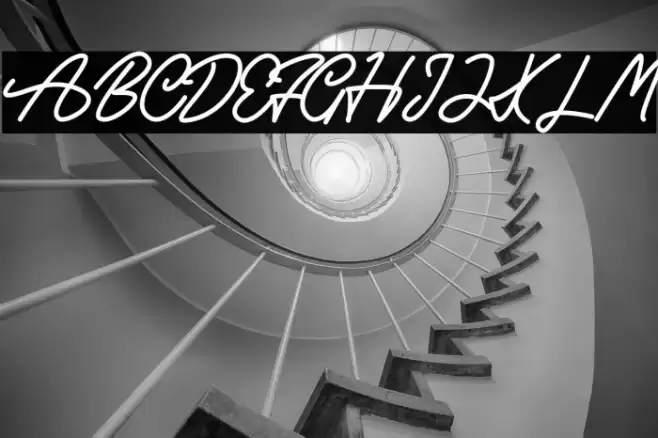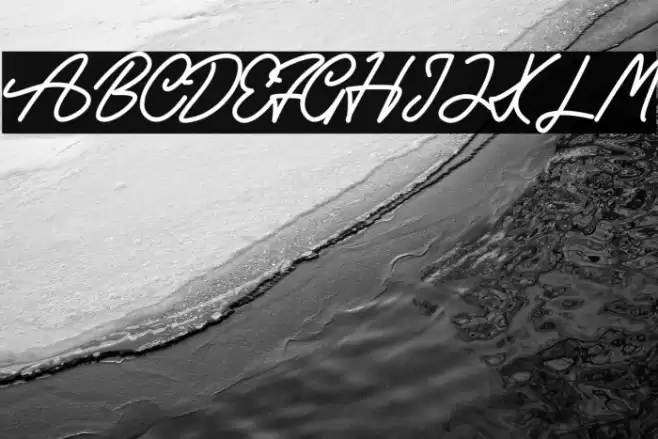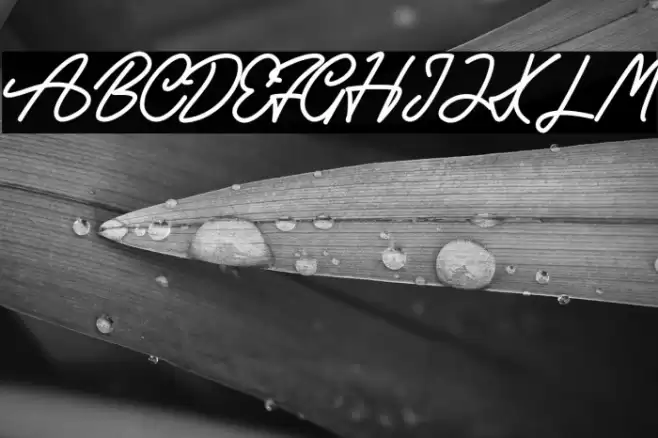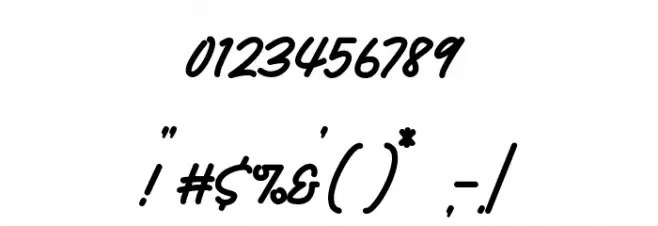
Rush Hour Font
Rush Hour Description
This font features a flowing, cursive style that mimics elegant handwriting. The letters are interconnected, creating a seamless and fluid appearance. The uppercase letters are slightly larger and more pronounced, while the lowercase letters maintain a consistent flow. The numerals and special characters are designed to match the overall script style, adding a cohesive look to any text. The strokes are smooth and rounded, giving the font a friendly and approachable feel. This font is perfect for projects that require a personal touch, such as invitations, greeting cards, or branding materials.
A flowing, cursive script font with interconnected letters and smooth strokes from Uncategorized fonts.
- Font: Rush Hour
- Proposed Projects: Ideal for invitations, greeting cards, branding, and personal projects.
- Character Spacing: Tight
- Overall Style: Elegant
- Use Case: Logos, Headlines, Decorative text